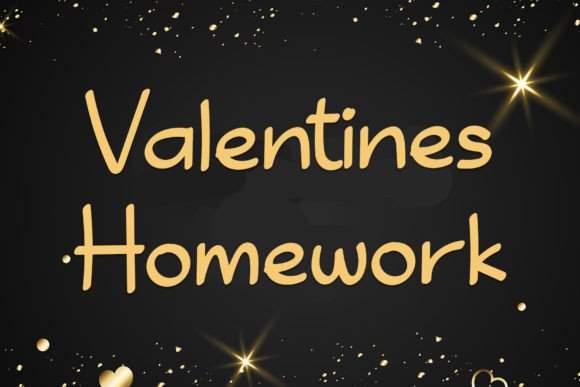
Prepare yourself to fall head over heels with Valentines Homework Font, a breathtaking handwritten font that exudes charm and elegance. Every stroke and curve carries a sense of heartfelt emotion, making it the perfect choice for creating designs that touch the heart.
Journey into a world of creativity where words dance gracefully upon the page, guided by the delicate hand of Valentines Homework Font. Its timeless appeal makes it suitable for a wide range of projects, from whimsical wedding invitations to heartfelt greeting cards. Let your designs blossom with a touch of handwritten beauty.
With Valentines Homework Font, the possibilities are endless. Unleash your imagination and let your designs soar. Craft logos that speak volumes with their intricate details, or create business cards that leave a lasting impression with their personalized touch.
Step into a realm of visual delight, where every letter holds a story and every word carries a melody. Let Valentines Homework Font be your muse, guiding you towards designs that capture hearts and leave an unforgettable legacy.
Isn't it time to add a touch of love and warmth to your creative endeavors? Embrace the allure of Valentines Homework Font and let your designs bloom with heartfelt beauty.